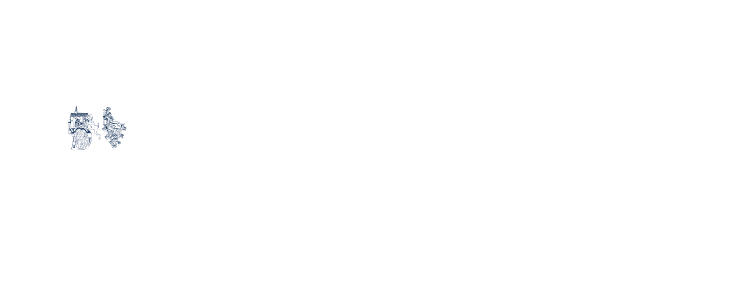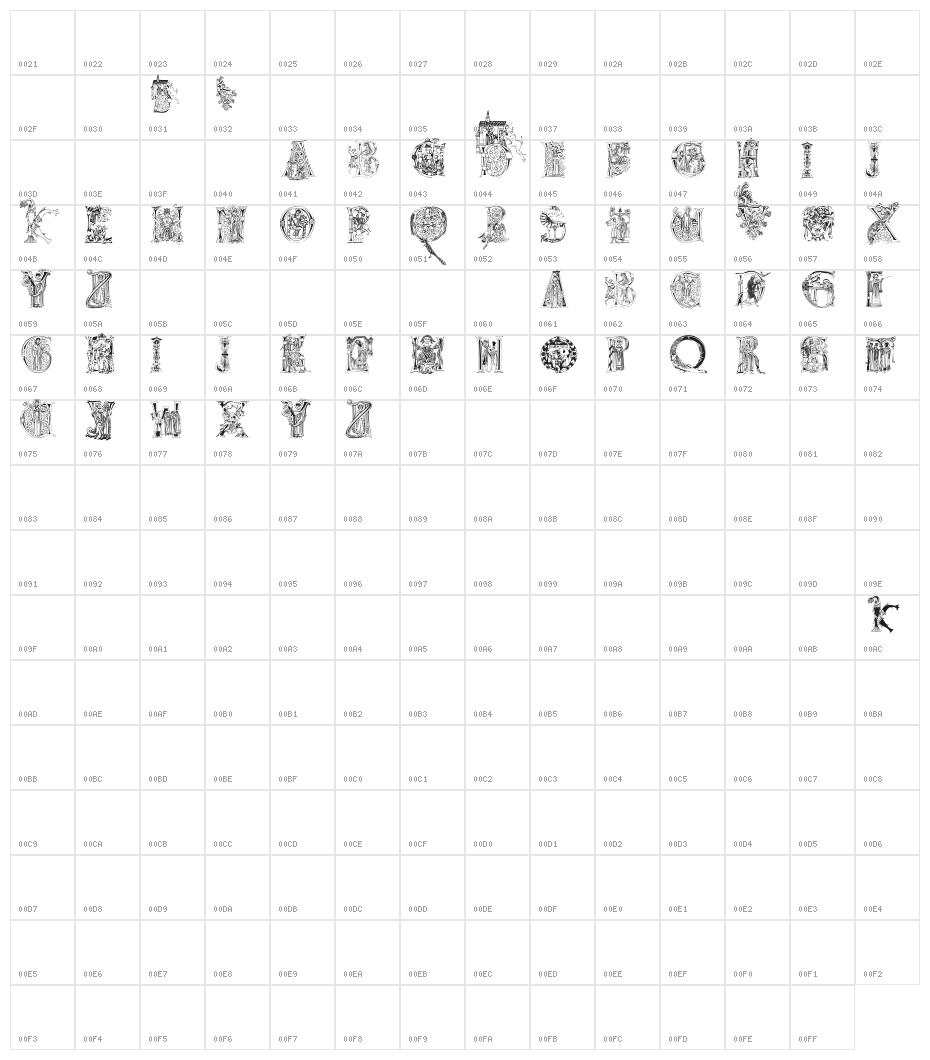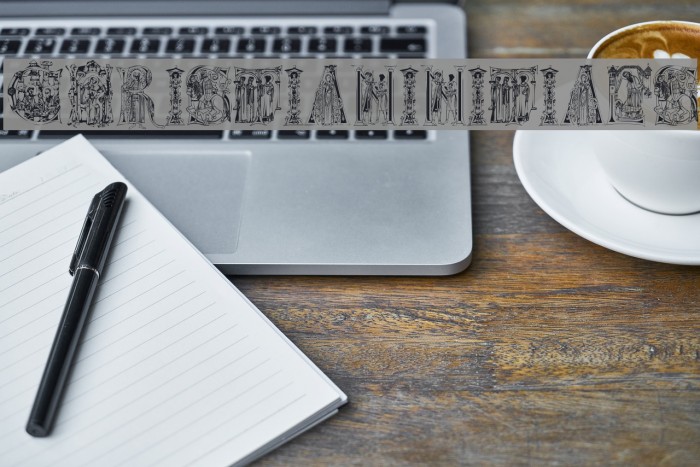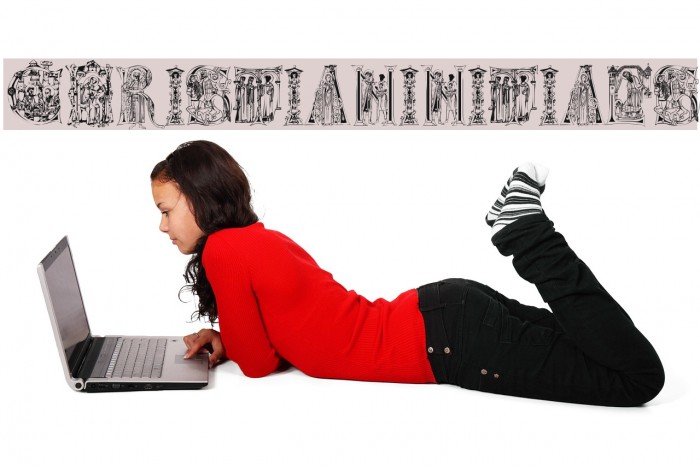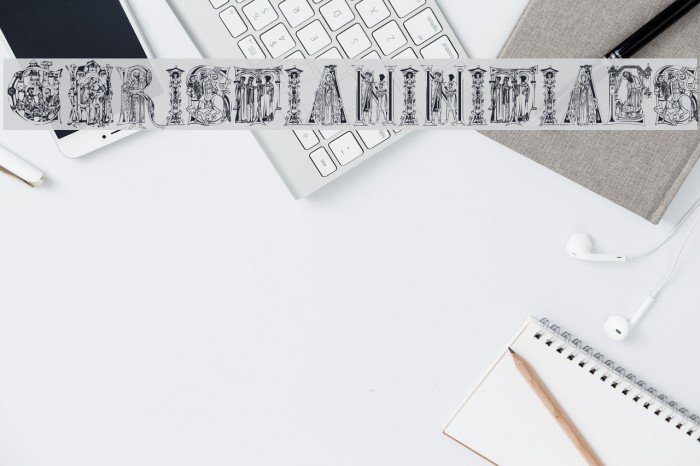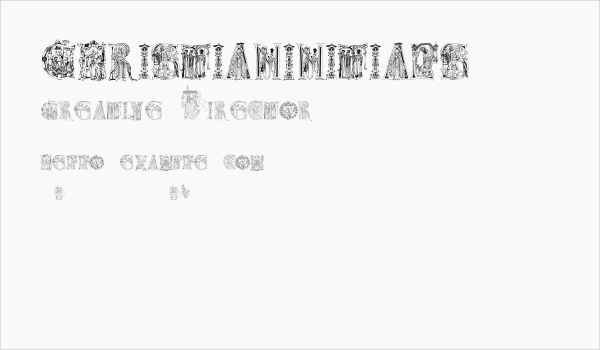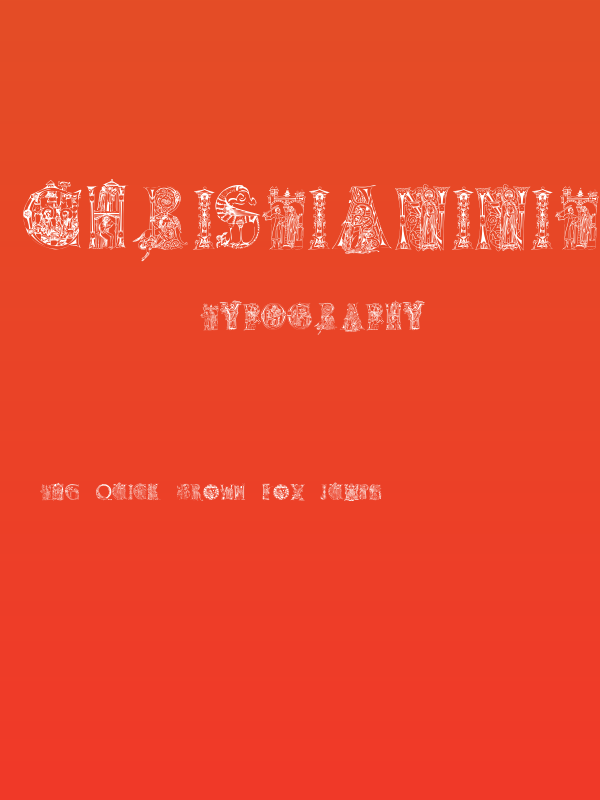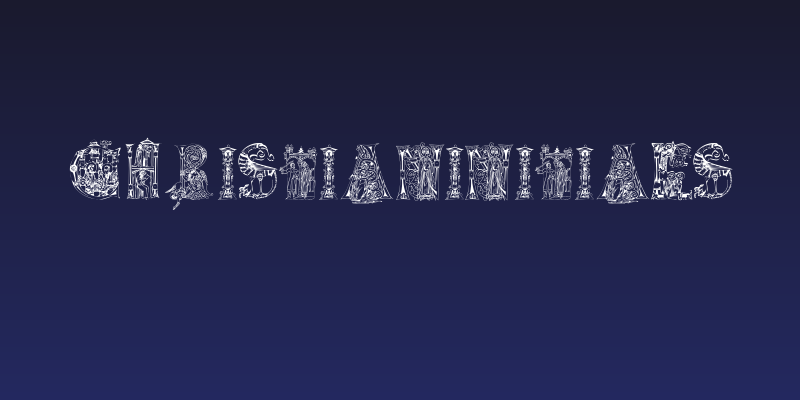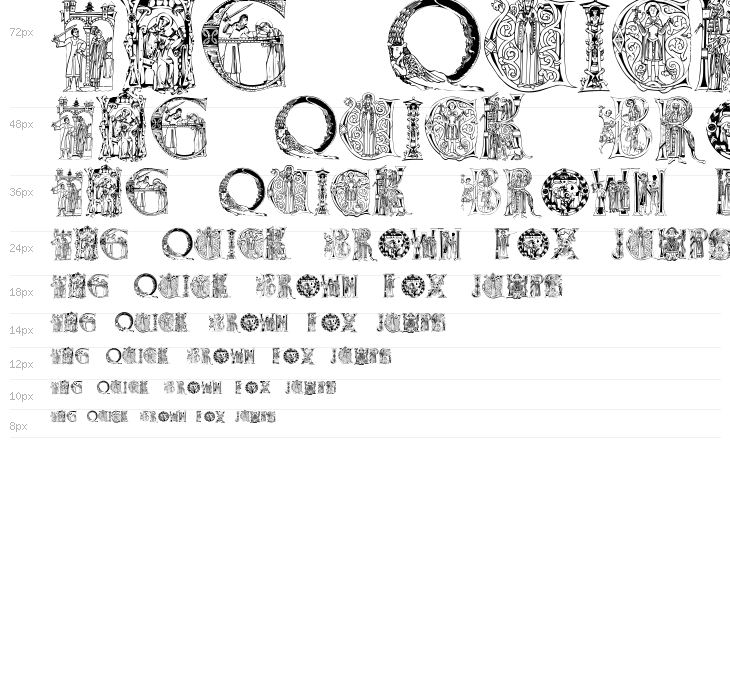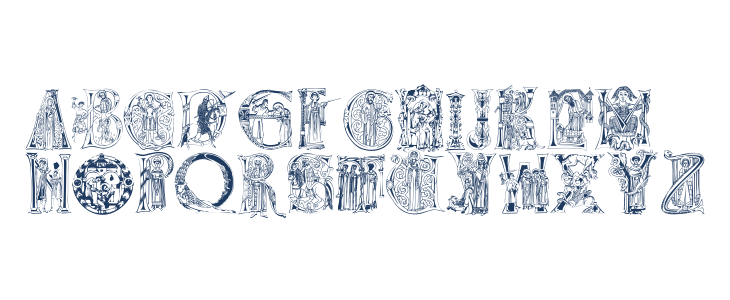
ChristianInitials Font
ChristianInitials Description
This font is a highly decorative and intricate style, reminiscent of illuminated manuscripts from the medieval period. Each letter is adorned with elaborate illustrations, often incorporating religious or historical motifs. The characters are ornate, with detailed embellishments that create a sense of grandeur and artistry. The design is complex, with each letter appearing as a miniature work of art, making it suitable for projects that require a touch of historical elegance and sophistication.
Overall StyleVintage
Use CaseLogos, Decorative headings, Invitations
Proposed ProjectsIdeal for use in historical or religious themed projects, book covers, invitations, or any design requiring a medieval aesthetic.